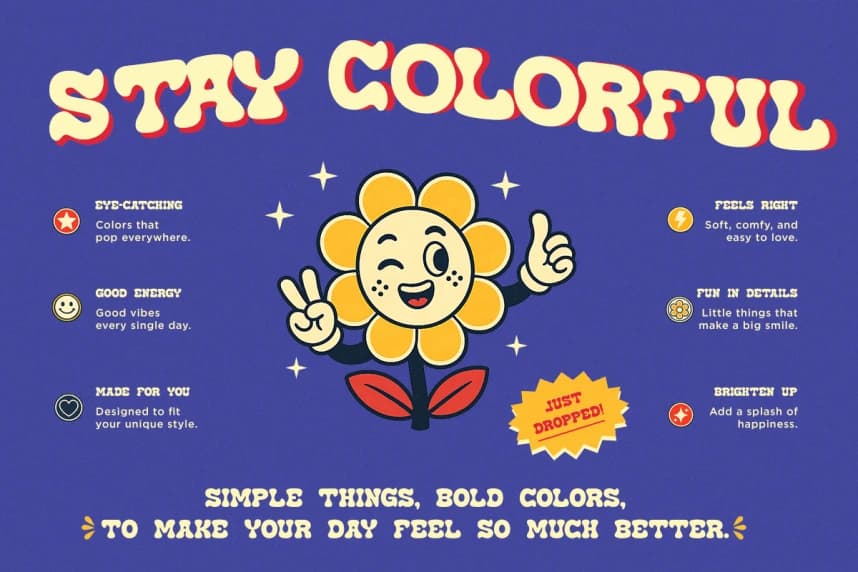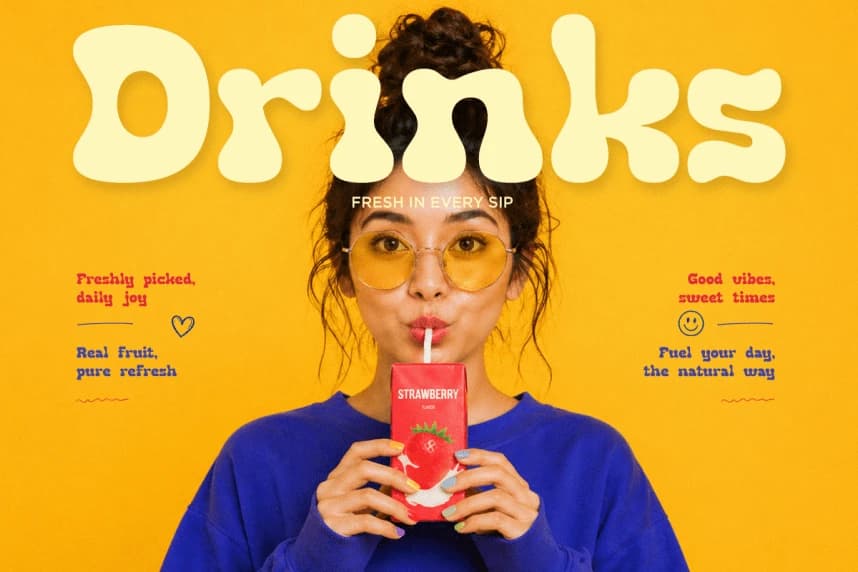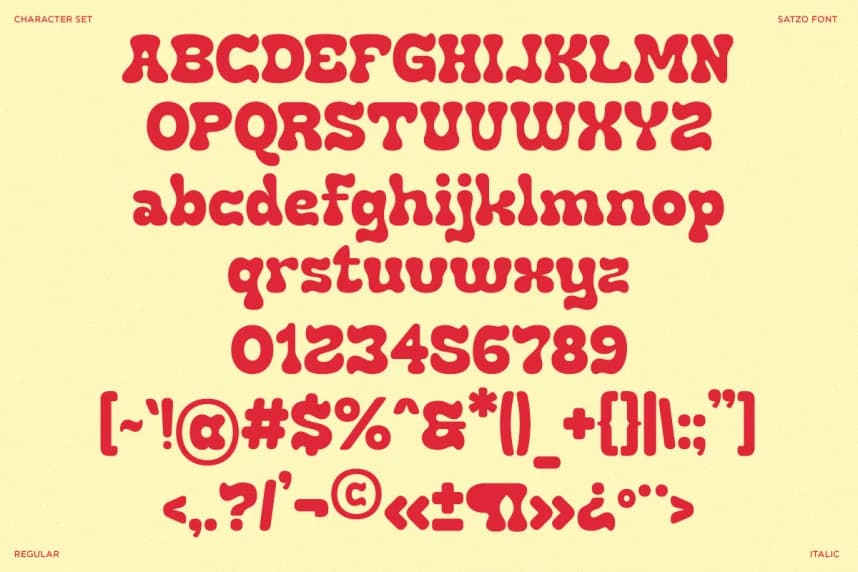
Satzo Font
Satzo Font is a playful retro display font bursting with groovy energy and nostalgic charm. Inspired by the bold visual culture of the 70s, funky poster typography, vintage packaging, and cheerful branding aesthetics